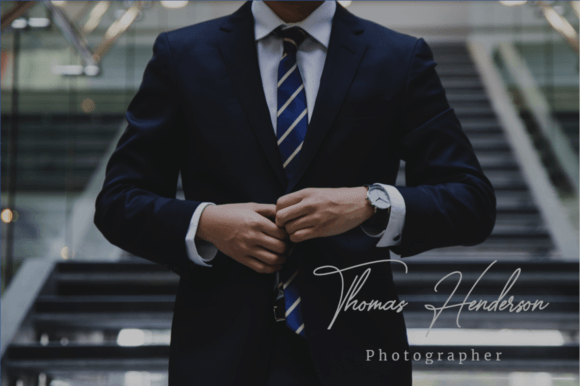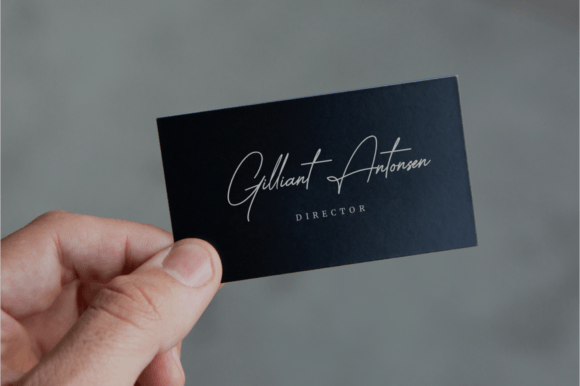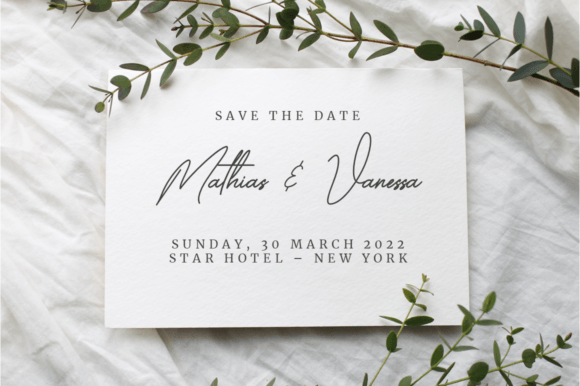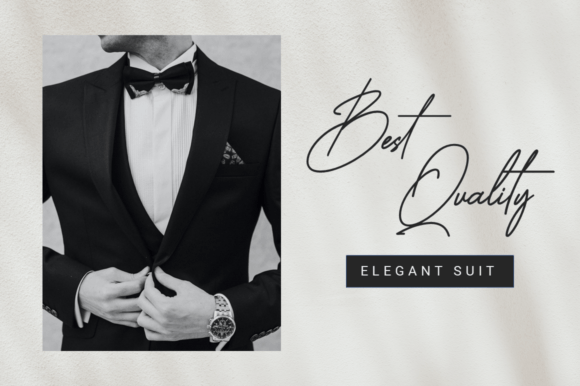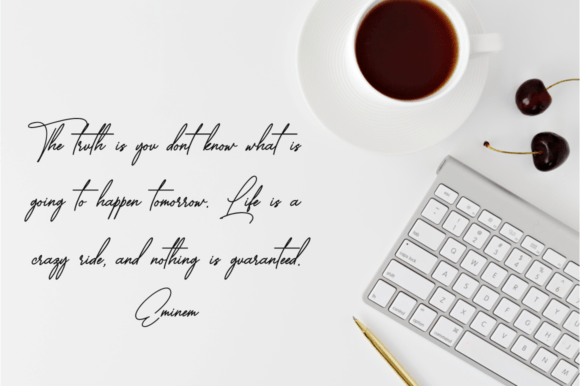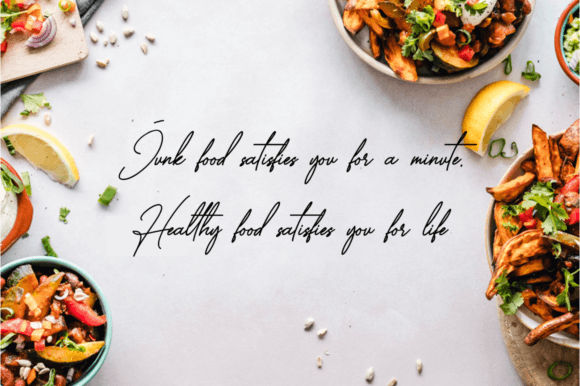
Introduction to Kasthing Letter Font
Have you ever stared at a blank page, waiting for the perfect font to come along and spark your creativity? For designers, this moment is a common occurrence, but what if you stumbled upon a font that elevates your entire creative project? This is exactly what happens when you discover the Kasthing Letter Font.
As a free download, the Kasthing Letter Font is an incredible resource for designers looking to add a touch of elegance to their work. With its high-quality design and intricate details, this font is sure to make a statement. Whether you’re working on a logo, brochure, or social media graphic, the Kasthing Letter Font is an excellent choice.
Key Features of Kasthing Letter Font
- High-quality font designed for creative projects, perfect for adding a unique touch.
- Transparent background, allowing for seamless integration into various design elements.
- Unique, hand-drawn style that adds a personal touch to any creative project.
Honest Review: Kasthing Letter Font
As a designer, I’m always on the lookout for high-quality design resources to elevate my creative projects. Recently, I stumbled upon the Kasthing Letter Font, and I’m excited to share my honest review with you.
- ✨ The font features a unique and stylish design, perfect for adding a touch of personality to your creative projects.
- ✨ The font is available with a transparent background, giving you the flexibility to use it on a variety of backgrounds and designs.
However, I do have a few reservations:
- ⚠️ The font’s character set is limited, which may not be suitable for projects that require a wide range of characters.
- ⚠️ The font’s legibility can be affected by the size and resolution of the design.
Overall, I’m impressed with the Kasthing Letter Font’s potential and versatility. While it may have some limitations, it’s a great design resource for those looking to add a unique touch to their creative projects.
Tips for Getting the Most Out of Kasthing Letter Font
Use the Kasthing Letter Font with a transparent background to create visually appealing graphics. Experiment with different font sizes and styles to add variety to your design. This high-quality font is a valuable design resource that can elevate your creative project.
The Kasthing Letter Font is suitable for various creative projects, including branding, advertising, and graphic design. Its high-quality design and transparent background make it an ideal choice for designers who want to create visually appealing graphics.
Alternatives to Kasthing Letter Font
The Great Vibes Font is a high-quality, elegant script font perfect for creative projects that require a touch of sophistication. It features a transparent background, making it ideal for use on various backgrounds. This font is suitable for designing invitations, posters, and other marketing materials.
Compared to Kasthing Letter Font, Great Vibes Font has a more refined and elegant look, making it ideal for formal events and high-end branding.
The Dancing Script Font is a lively and playful font that is perfect for creative projects that require a sense of movement and energy. It features a transparent background and is available for free download, making it an excellent design resource for designers on a budget.